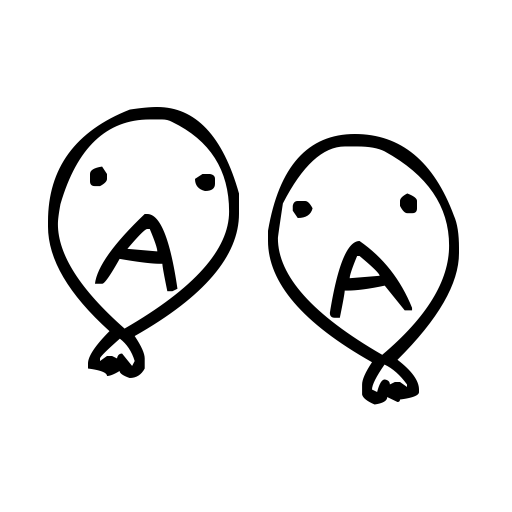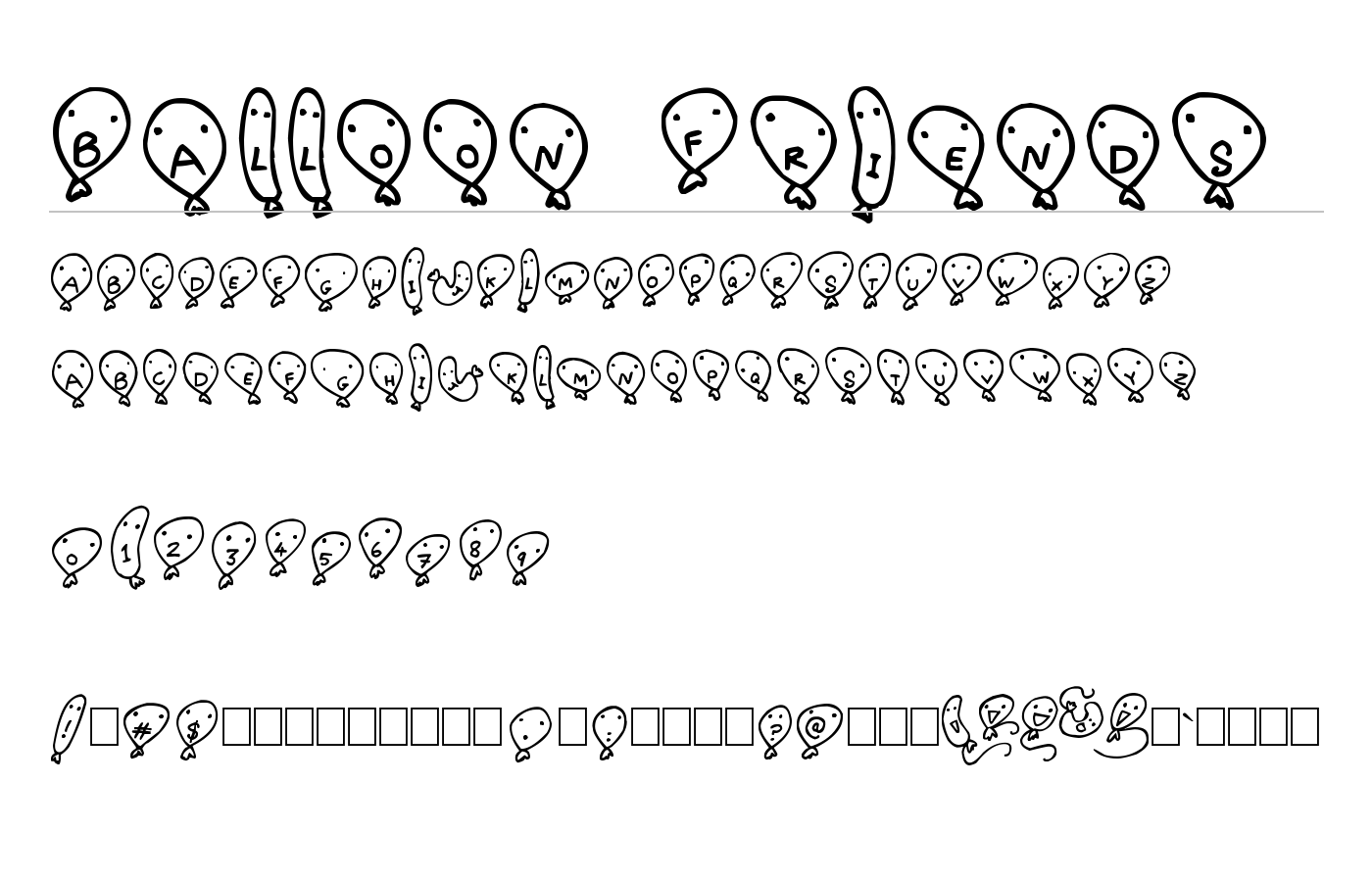
Balloon Friends is a playful, hand-drawn font featuring letters shaped like cheerful balloons, giving it a lighthearted and whimsical feel. Its uneven lines and quirky character details make it perfect for children's designs, party invitations, and informal branding where fun and friendliness are key. This unique font shines best in creative, casual contexts that aim to bring joy and charm.
Balloon Friends Font